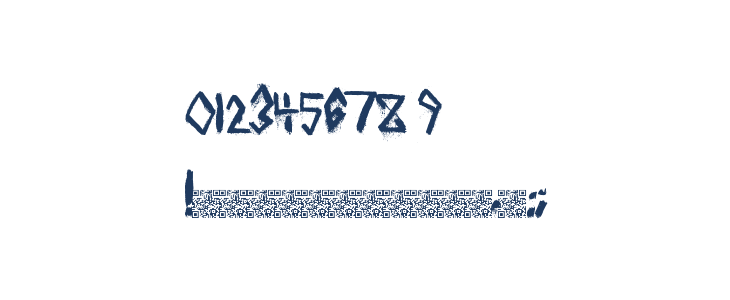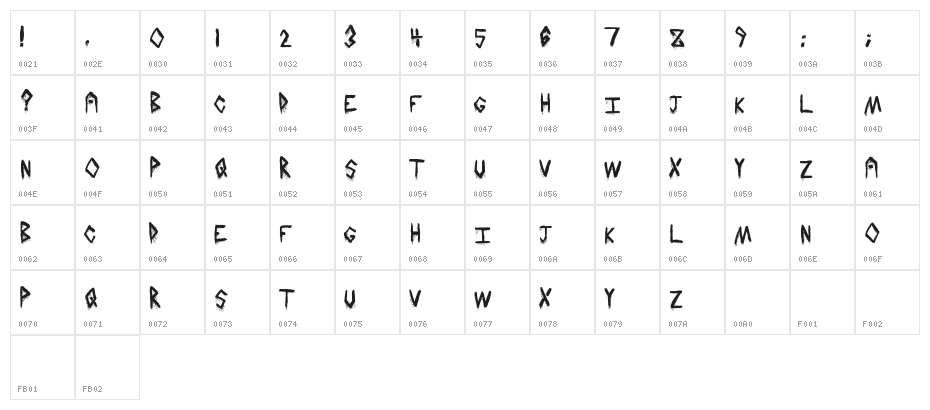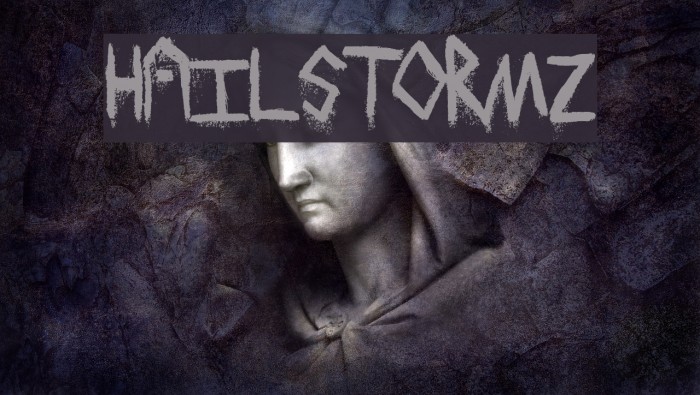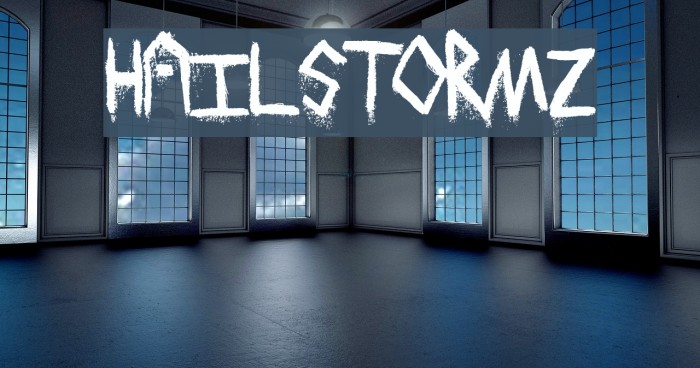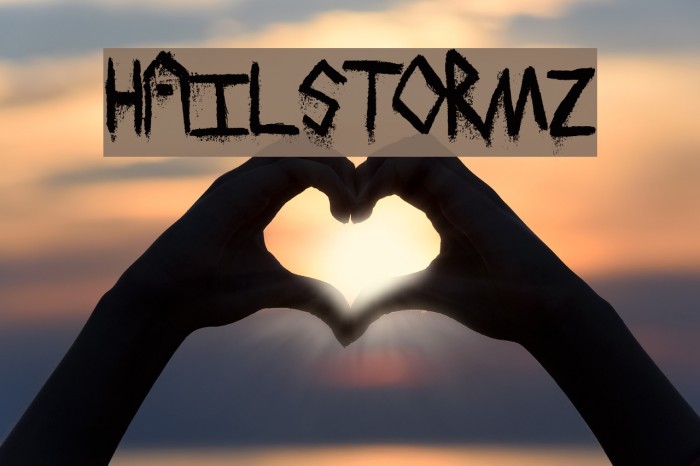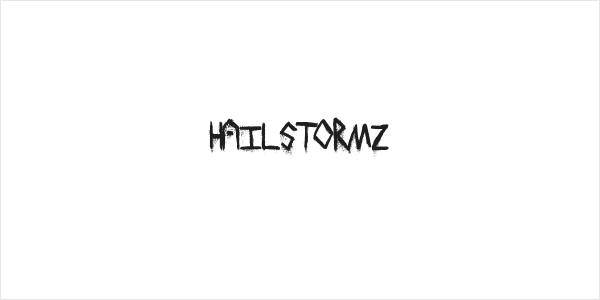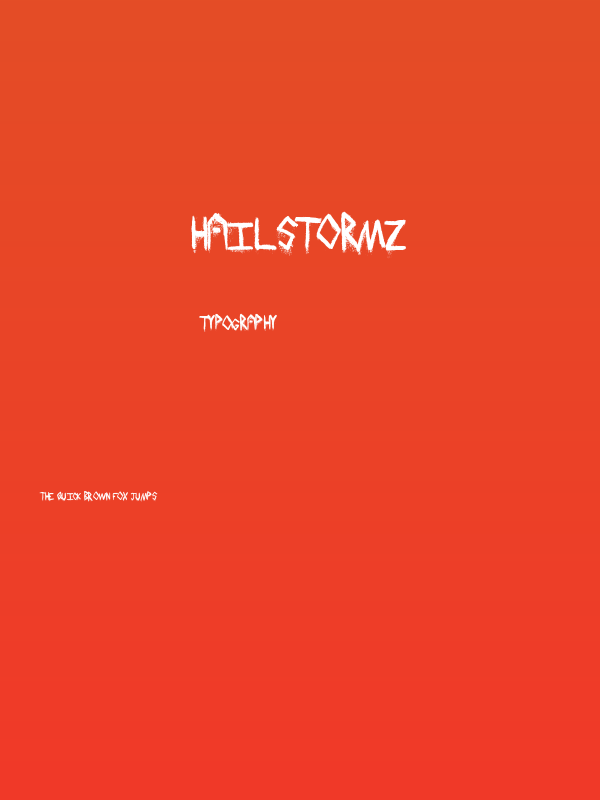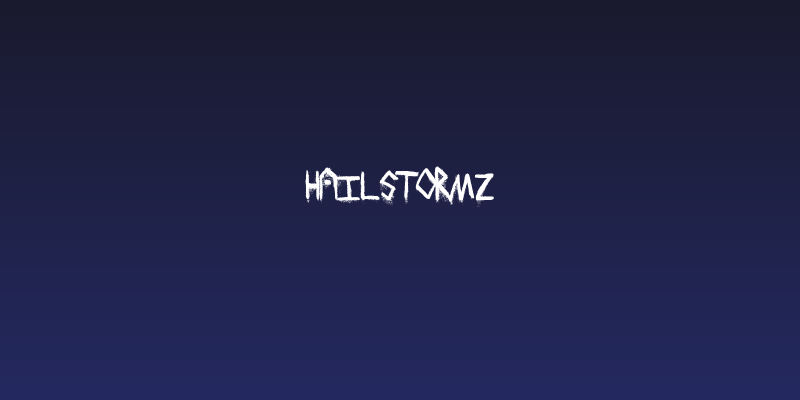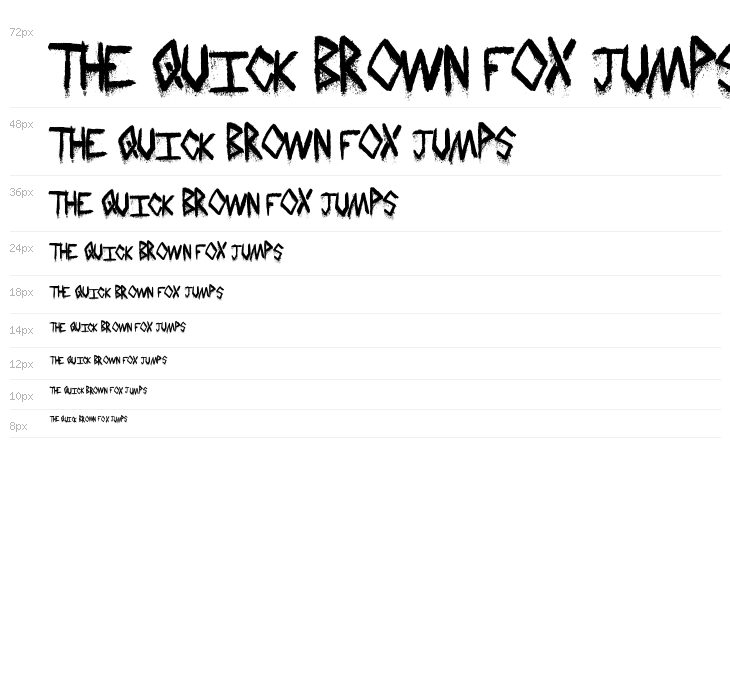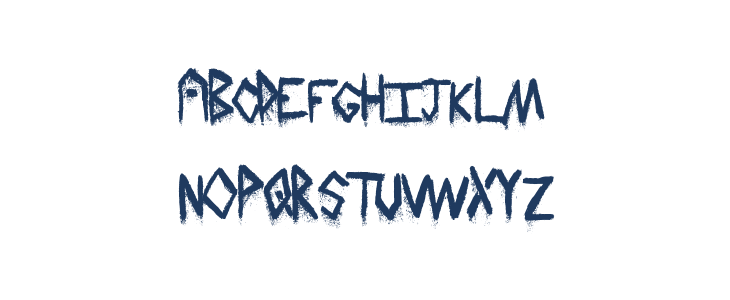
HailStormz Font
This font features a bold and rugged style with a distressed, grunge-like appearance. The characters are heavily textured, giving them a rough and edgy look. The uppercase and lowercase letters maintain a consistent style, with sharp angles and irregular edges that suggest a hand-drawn or spray-painted effect. The numbers and special characters follow the same aesthetic, making the font cohesive and visually striking. Its unique and rebellious design makes it suitable for projects that require a bold statement.
Overall StyleModern, Grunge
Proposed ProjectsIdeal for music album covers, edgy posters, streetwear branding, and event flyers.